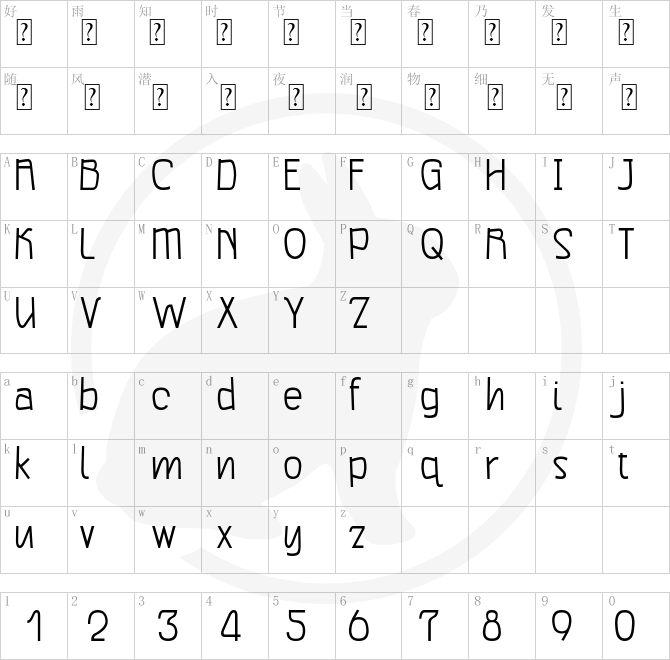
- Font Name:Qrypton
Qrypton.otf is a very beautiful artistic font, Qrypton.otf is widely used in the design and printing of various books and pictures,Qrypton.otf has a strong visual impact,Qrypton.otf is a commonly used font in newspapers, magazines and books, and is used in posters, e-commerce Poster design, store design, logo design, font design and other fields.Qrypton.